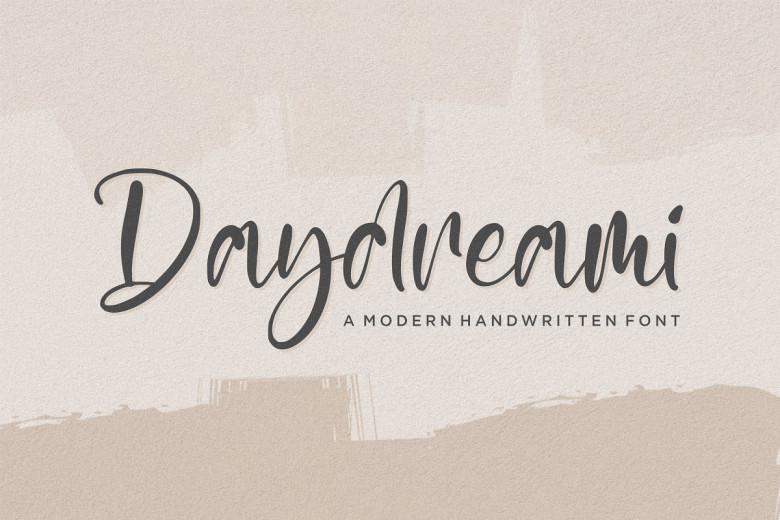
Daydreami Font
Daydreami is a Modern Handwritten Font. Daydreami is perfect for product packaging, branding project, magazine, social media, wedding, or just used to express words above the background.
Daydreami Handwritten Script Font